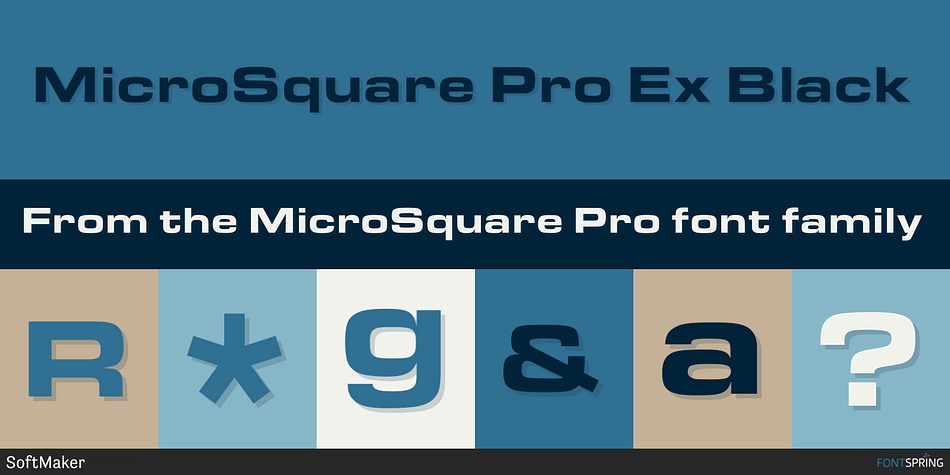
MicroSquare Pro Ex Black
MicroSquare Pro is a sans serif font family. This typeface has eight styles and was published by SoftMaker.
MicroSquare Pro is a rather square sans serif typeface that became popular for display and advertising use. The linear nature of it suggests modern architecture, and its attraction is technical and functional.